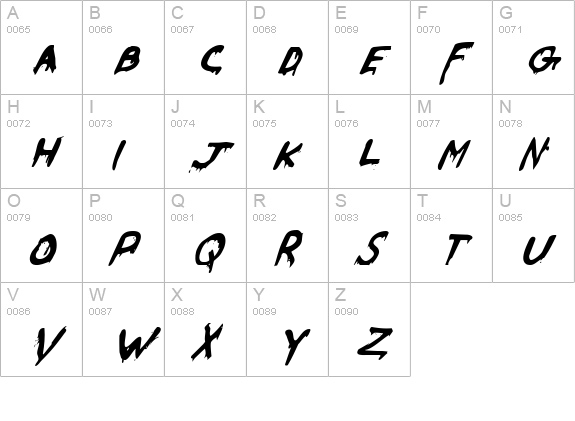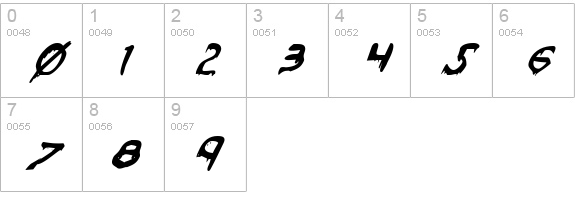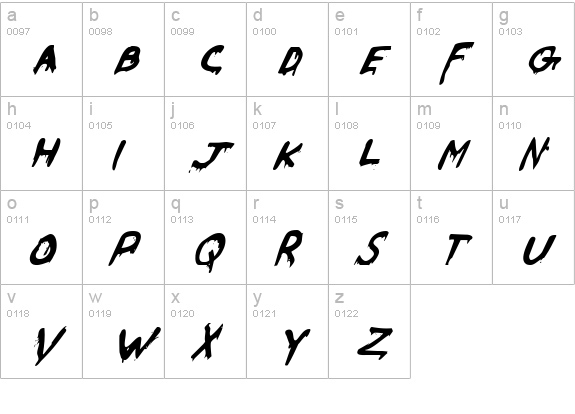
Were-Beast Italic is a distinctive, italic variant in the Were typeface family \xE2\x80\x94 well suited to design and typography projects.
The Were-Beast Italic font is a captivating and mysterious typeface that exudes an aura of primal energy and untamed beauty. With its sleek and dynamic letterforms, this font is perfect for adding a touch of wild sophistication to your design projects. Embrace the transformative power of the Were-Beast Italic font, as it unleashes a sense of strength and mystique in every word you create. Whether you're working on a branding project, poster design, or digital artwork, this font will elevate your work to new heights. Best of all, the Were-Beast Italic font is freely available to download at FontsMarket.com. So go ahead and unleash your creativity with this unique and powerful typeface today!